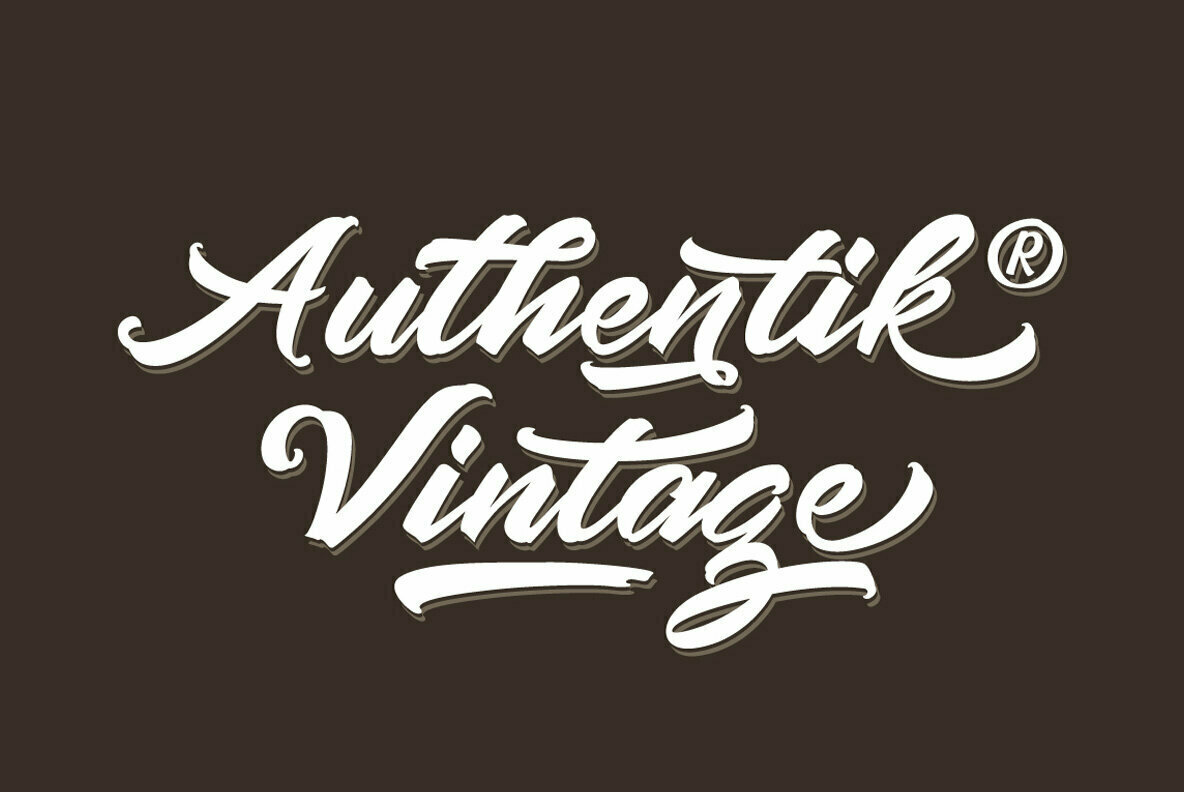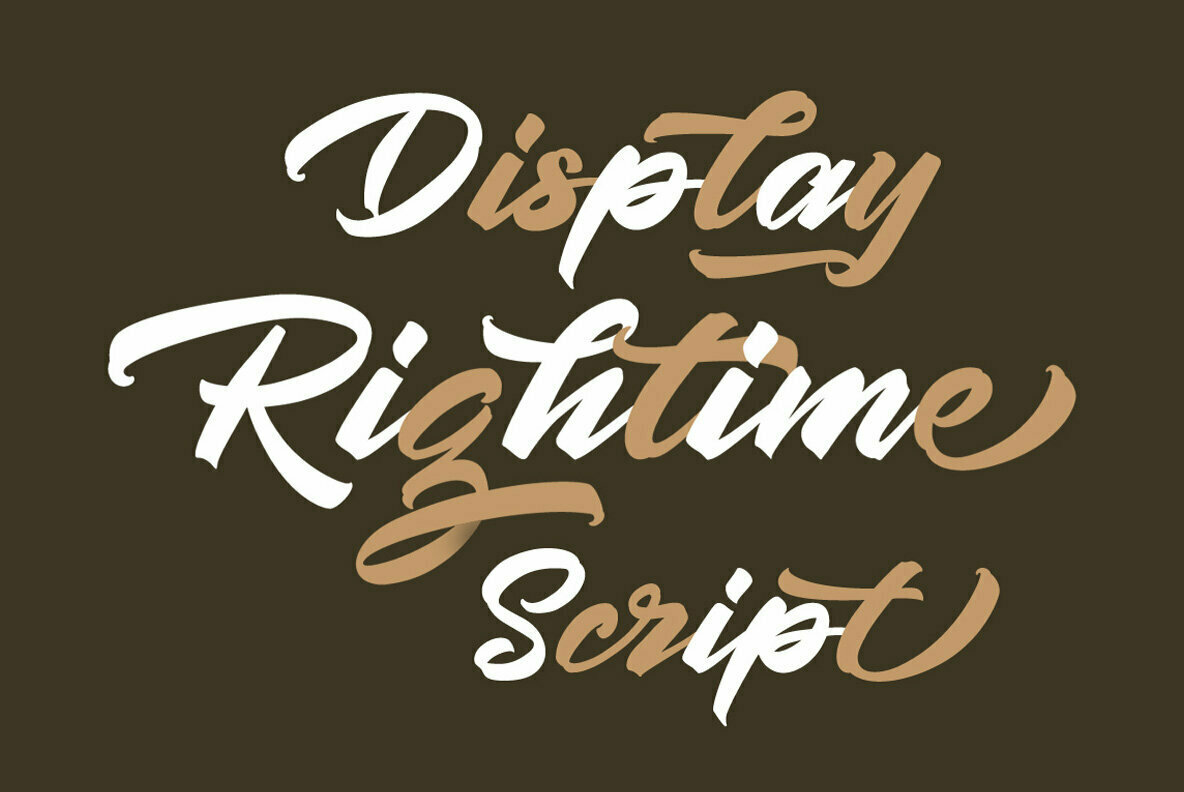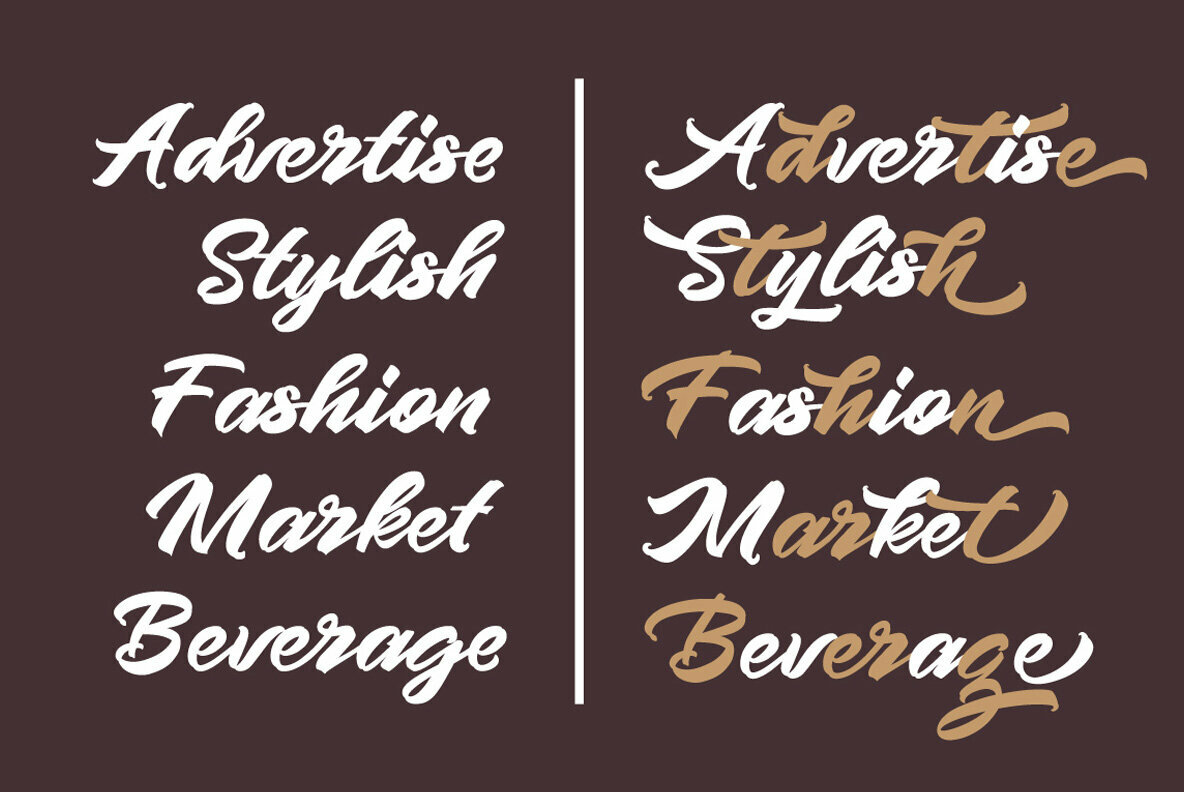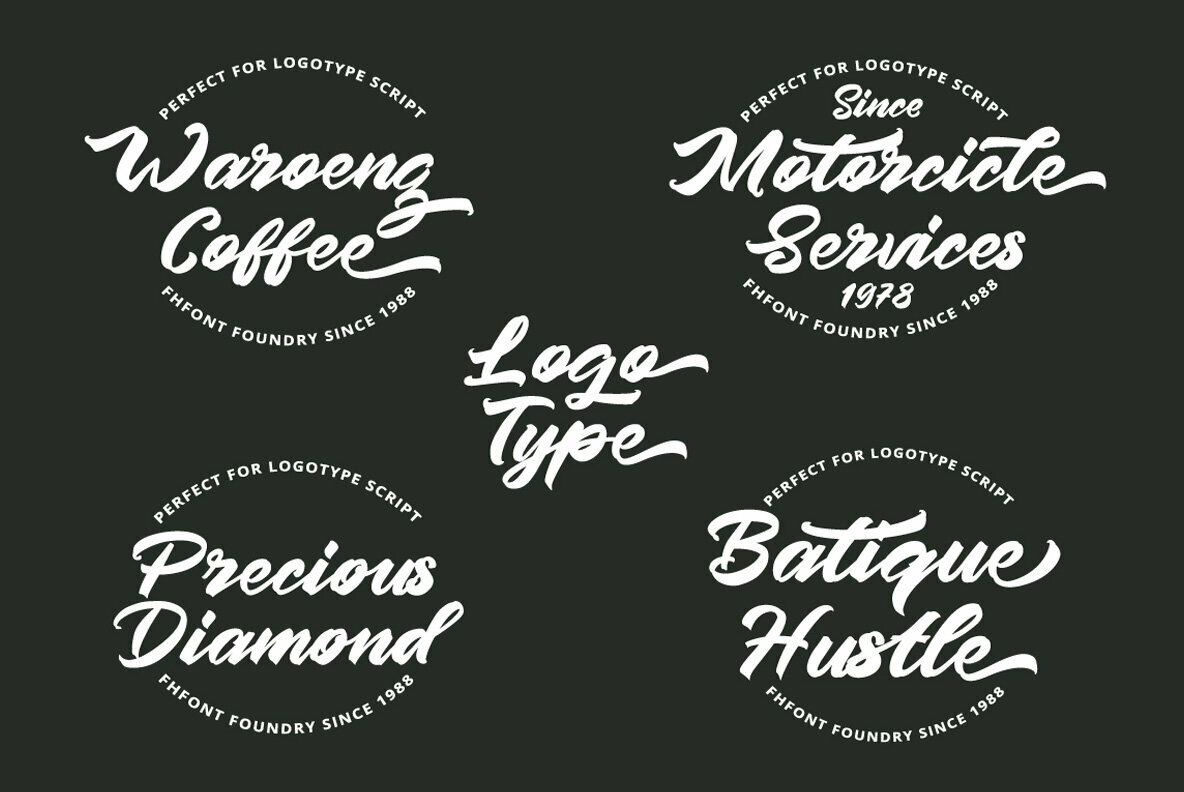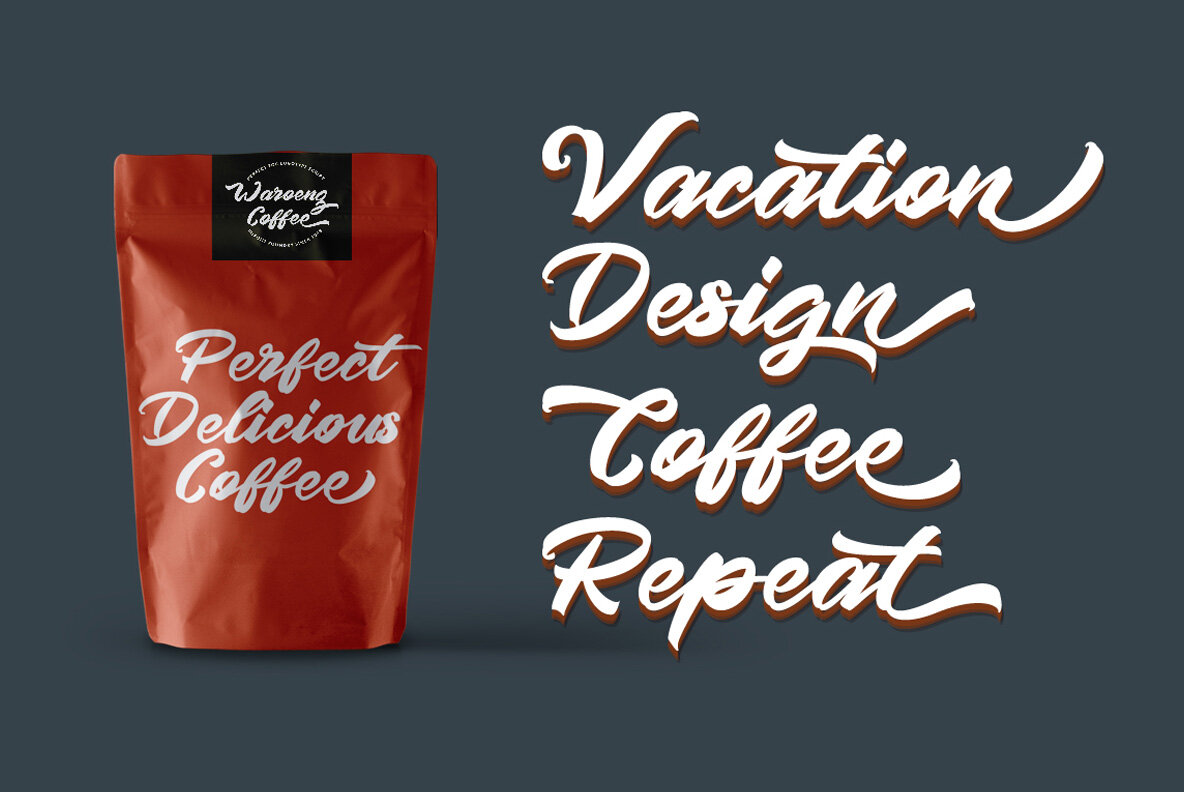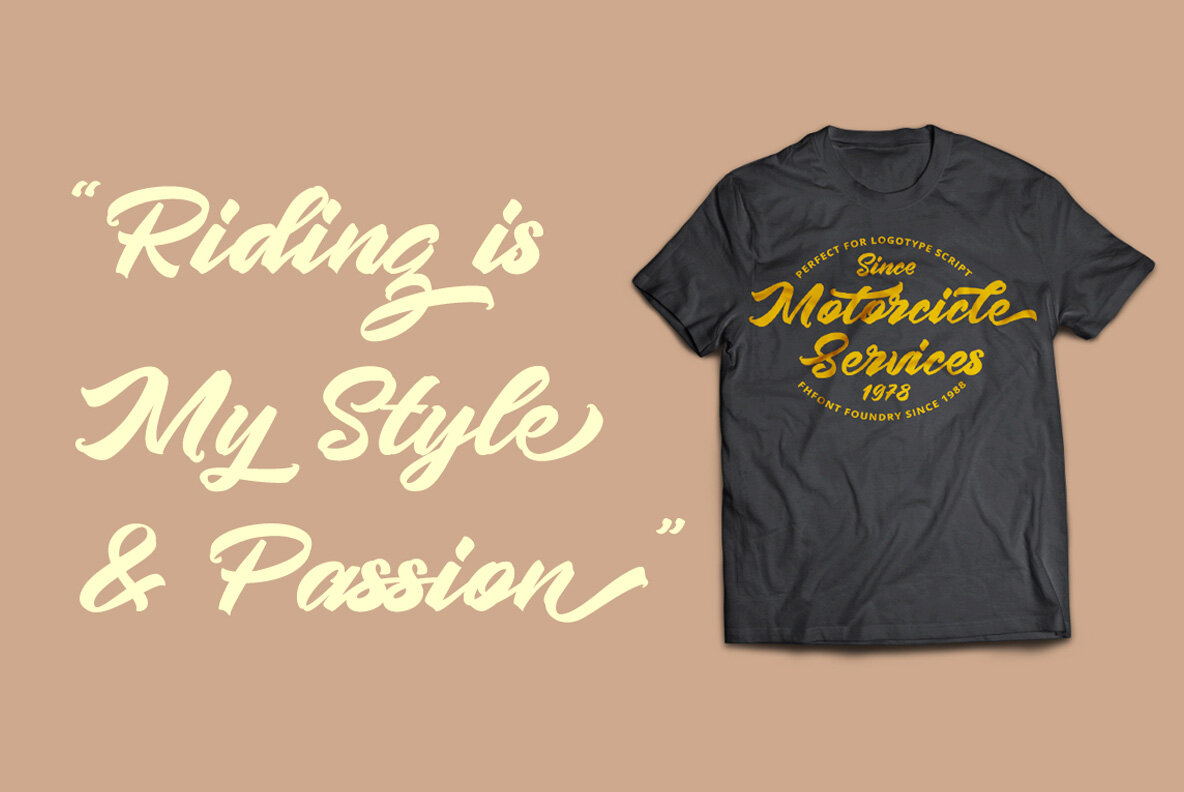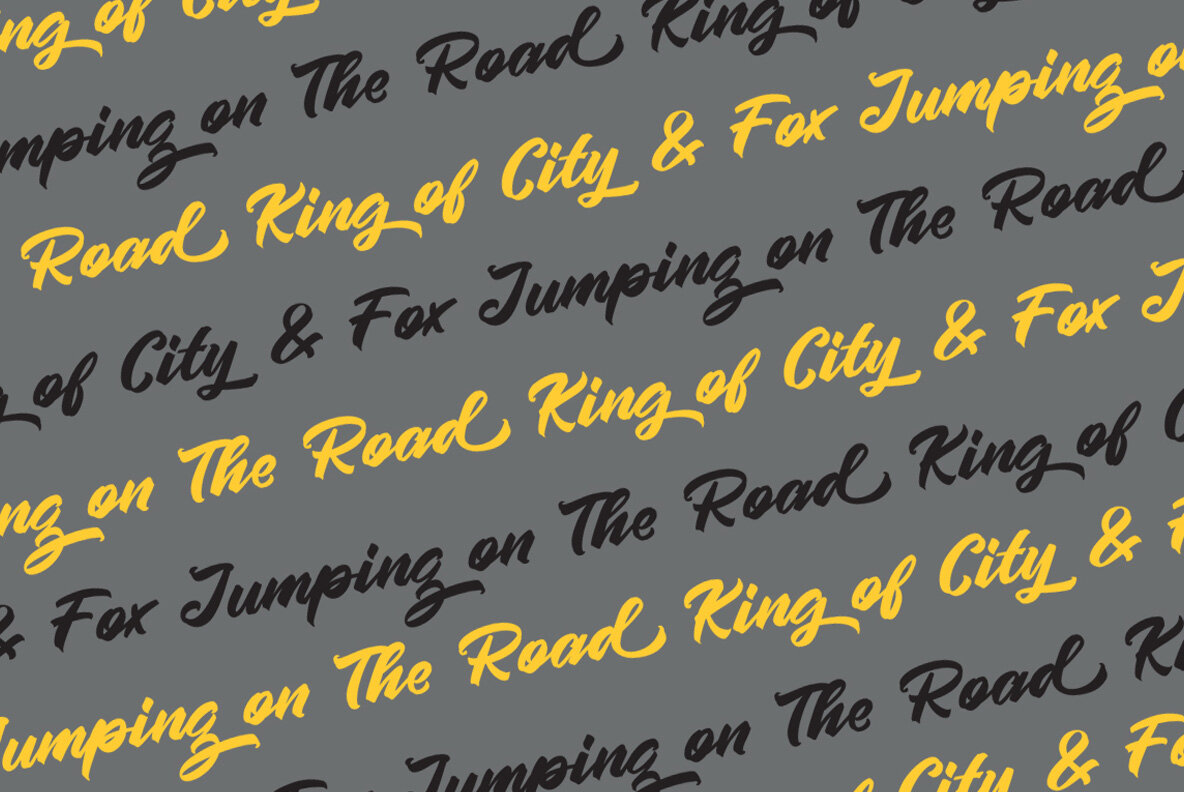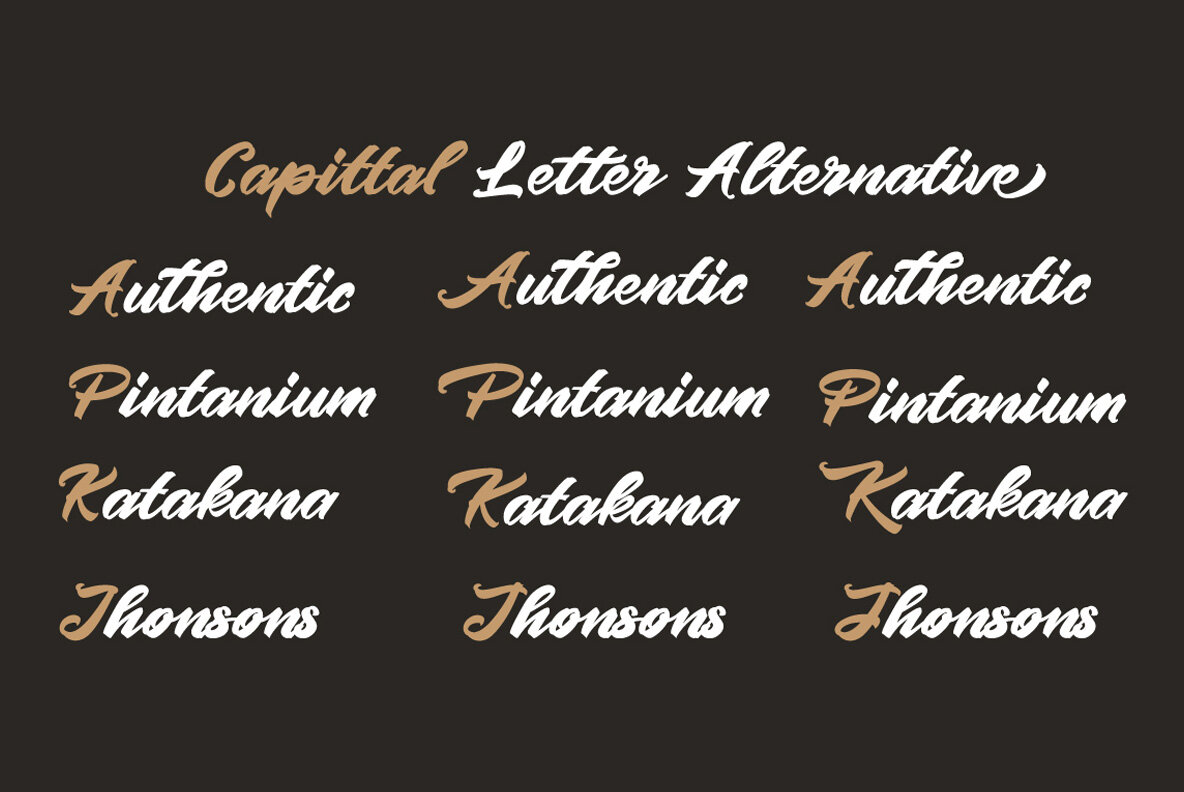
Pintenium Script Font
Pintenium Script
Pintenium Script captures the essence of vintage hand-lettered design, merging nostalgia with modern flair. This brush-style script font, rich with OpenType features, is well-suited for a variety of creative applications. Whether you’re designing logos, wedding invitations, or crafting bespoke t-shirts, Pintenium Script offers an adaptable solution that stands out. The simplicity of its installation ensures it is ready for your creative projects, working seamlessly with Adobe Illustrator and InDesign, as well as CorelDRAW. Bring your designs to life with the authentic charm of Pintenium Script.Pintenium Script: A Vintage Script Brush Font
Features of the Font